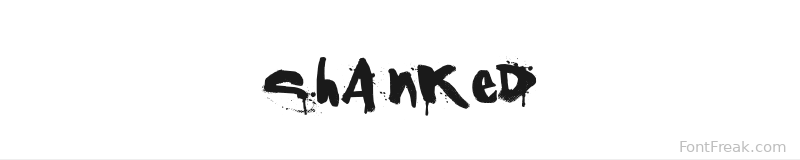
ShAnKed
The ShAnKed font by Billy Argel Fonts is a striking display typeface that captures attention with its unique, edgy aesthetic. As a decorative font, ShAnKed features irregular strokes and a rough texture that evoke a sense of urban grit and creativity. The bold, uneven letterforms are characterized by a heavy stroke weight and minimal contrast, giving it a solid appearance while maintaining an organic feel. The spacing between characters is also varied, further enhancing its hand-crafted vibe, making it ideal for designs that require a personal touch.
This font is particularly well-suited for a variety of creative projects. It can be effectively utilized for eye-catching movie posters that aim to convey a sense of drama or urgency. Additionally, ShAnKed works wonderfully for promotional materials for music events or festivals, where its boldness can resonate with a youthful audience. It's also a great choice for restaurant menus that seek to stand out, especially in casual dining settings that embrace a laid-back, artistic atmosphere. Furthermore, it can be used in merchandise design, such as t-shirts or stickers, appealing to fans of street art and contemporary culture.
Targeting graphic designers, small business owners, and content creators, ShAnKed offers a versatile option for anyone looking to infuse their work with personality and flair. The font’s distinctive style can help brands establish a memorable identity, making it a valuable asset in any designer's toolkit.
What sets the ShAnKed font apart is its ability to convey emotion and attitude through its raw, artistic design. Its freeware license makes it accessible for all, allowing users to download the ShAnKed font free download and incorporate this standout typeface into their projects, ensuring that their creations are as bold and unique as the font itself.